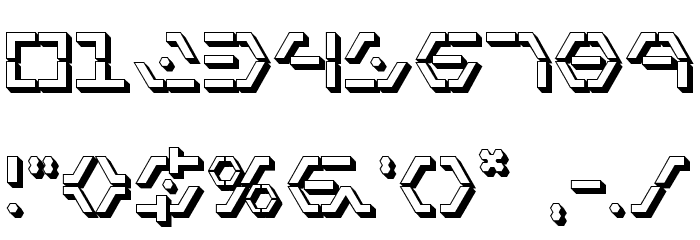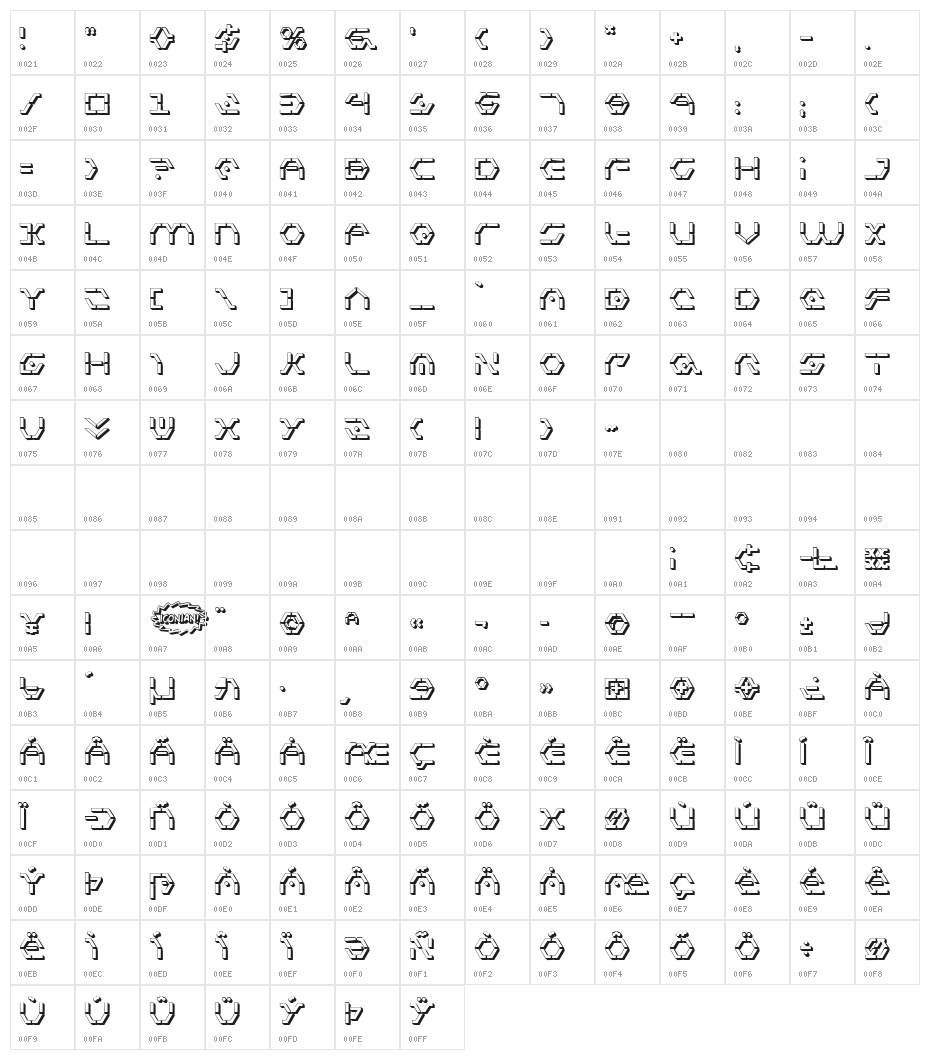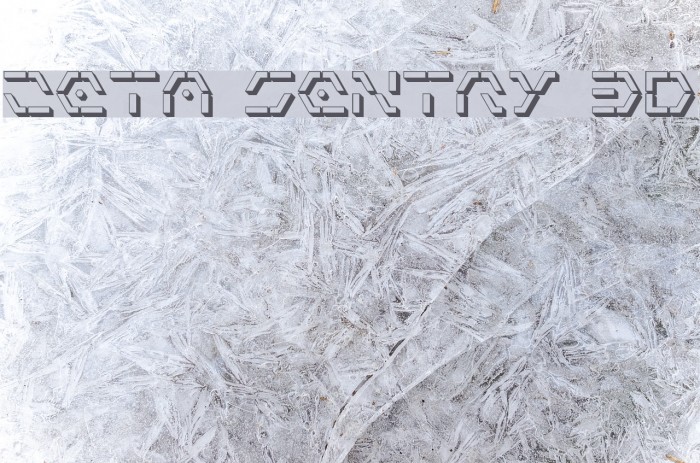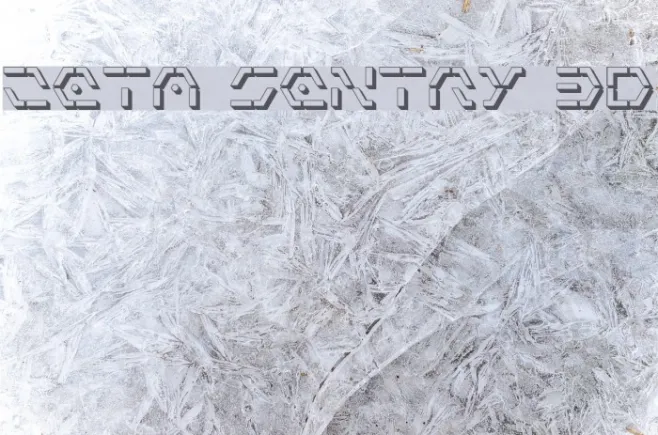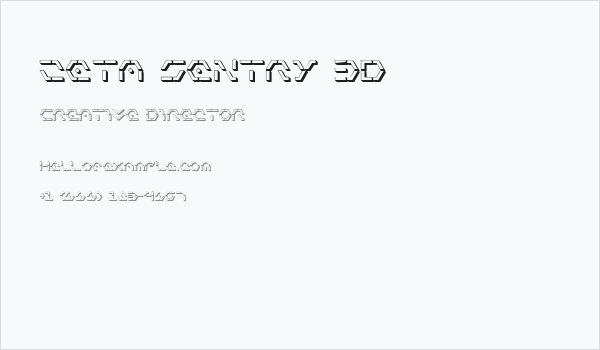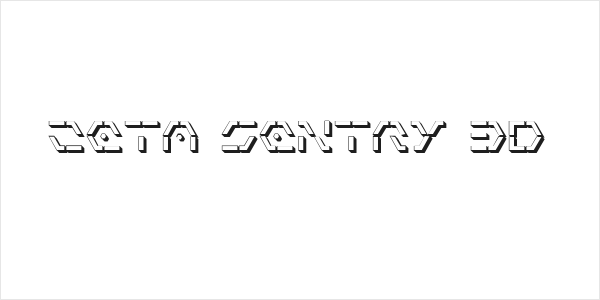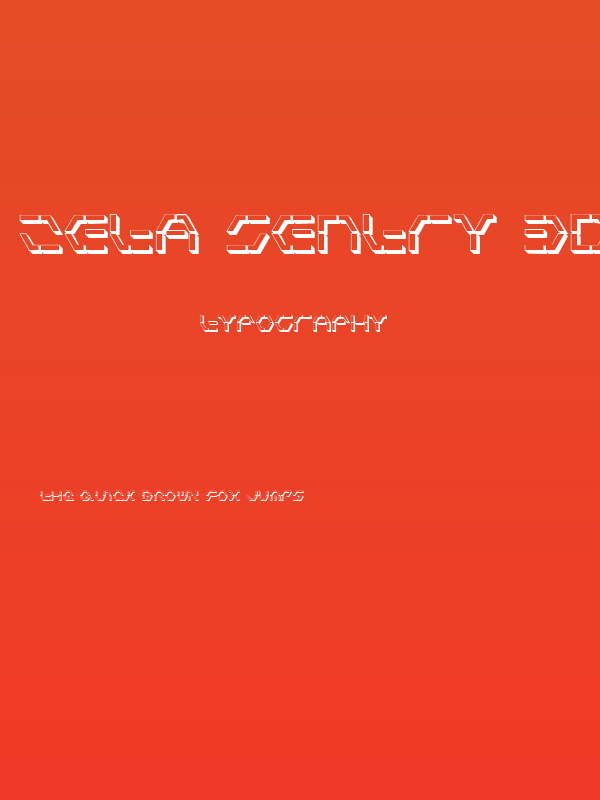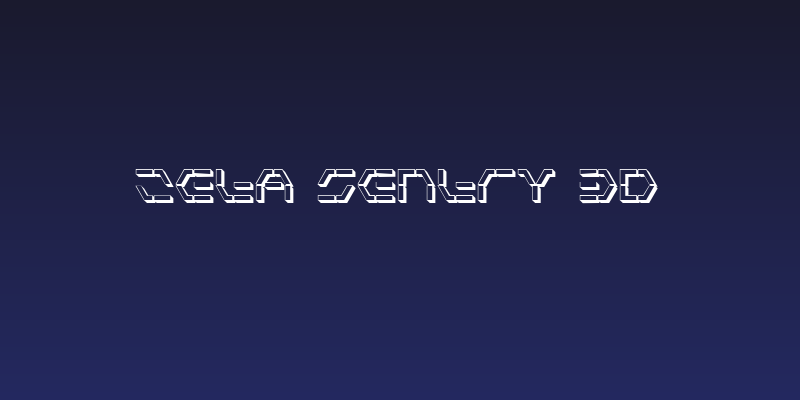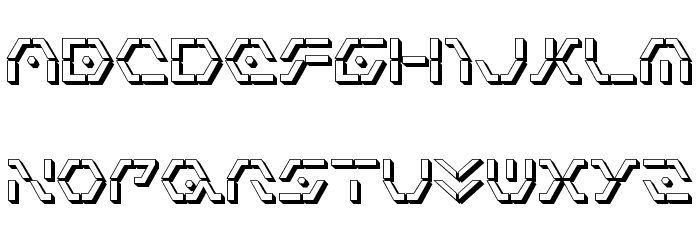
Zeta Sentry 3D Font
Zeta Sentry 3D Description
This font features a futuristic and geometric design, characterized by its three-dimensional appearance. Each character is constructed with bold, angular lines and a distinct blocky structure, giving it a tech-inspired aesthetic. The letters and numbers are outlined with a shadow effect, enhancing the 3D illusion. The font maintains a consistent width across all characters, contributing to its uniform and cohesive look. Its unique style is both eye-catching and modern, making it suitable for projects that require a strong visual impact.